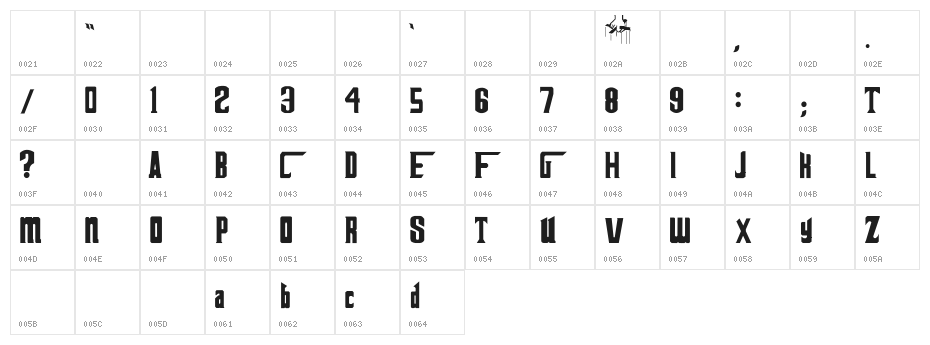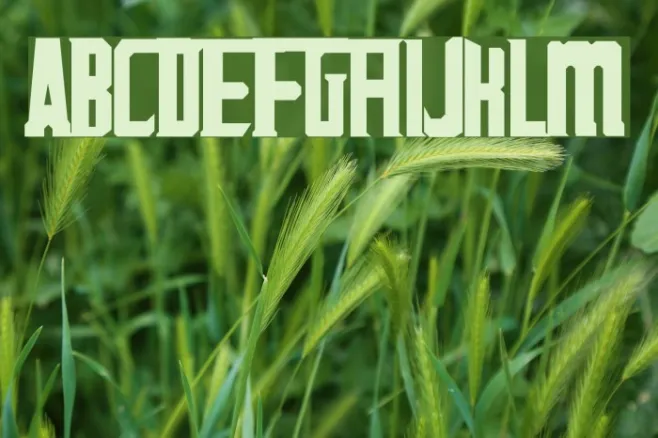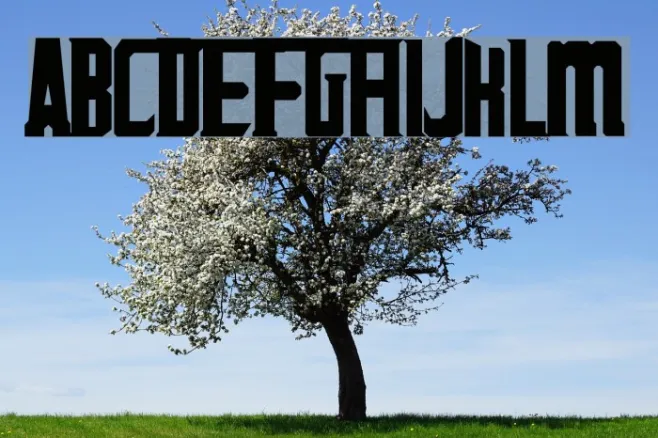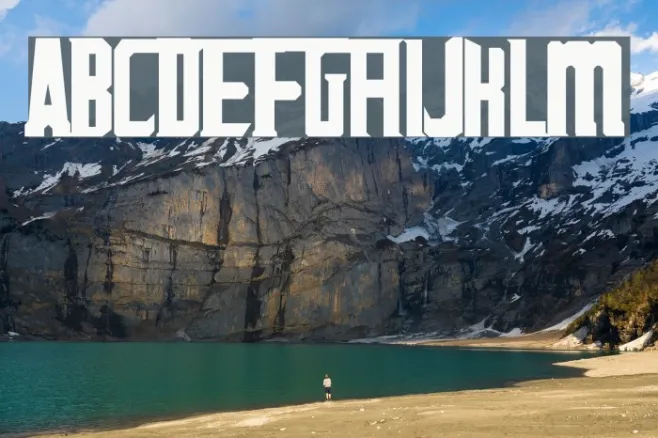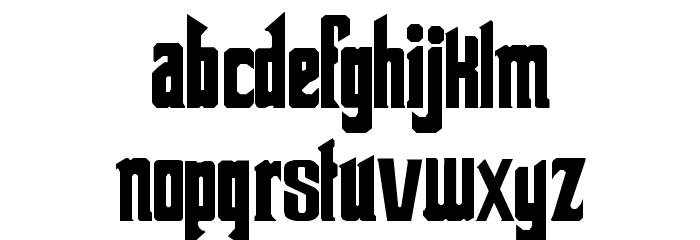
The Godfather Font
The Godfather Description
This font features a bold and dramatic style with strong, angular lines and a distinct presence. The uppercase letters are particularly striking, with a blocky and authoritative appearance that commands attention. The lowercase letters maintain the boldness but introduce slightly softer curves, providing a balance to the overall design. Numbers are equally bold, ensuring consistency across all characters. The special characters are uniquely styled, adding a touch of flair to the font. This typeface is reminiscent of classic gangster movie aesthetics, evoking a sense of power and tradition.
| Proposed Projects | Ideal for movie posters, book covers, branding for vintage or retro-themed products, and any design requiring a bold, authoritative presence. |